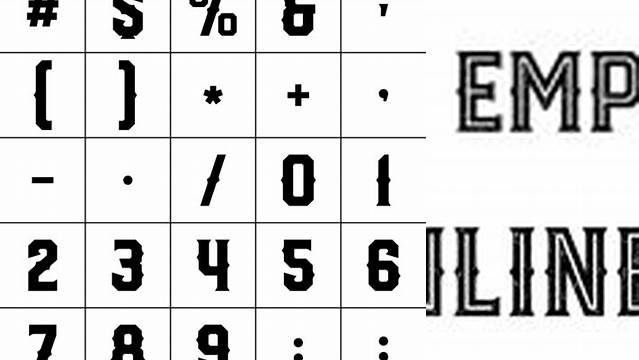
Hey guys! Looking to add some unique flair to your designs? You've come to the right place! Let's dive deep into the world of the Empera Inline Font Free and see how it can transform your projects. This font isn't just another typeface; it's a statement. It's bold, it's stylish, and it's ready to make your text pop. So, what's the hype all about? Well, the Empera Inline Font Free is perfect for headlines, logos, posters, and anything else where you want to grab attention. Its distinctive inline design adds a touch of elegance and modernity that's hard to ignore. Forget those boring, overused fonts – Empera Inline Font Free is here to shake things up!
What is Empera Inline Font?
So, what exactly is the Empera Inline Font? Imagine a font that's both sleek and sophisticated, with a touch of vintage charm. The Empera Inline Font Free is characterized by its clean lines and the inline strokes that run within the letters, giving it a distinctive, almost engraved appearance. This unique design makes it incredibly versatile, suitable for a wide range of projects. Whether you're crafting a logo for a high-end brand or designing a poster for a trendy event, the Empera Inline Font Free has you covered. The beauty of Empera Inline Font Free lies in its simplicity and elegance. It’s not overly flashy, but it commands attention with its subtle sophistication. This makes it a fantastic choice for projects that need a touch of class without being ostentatious. Plus, the inline design adds a layer of depth and visual interest that many other fonts simply can’t match.
Why Choose Empera Inline Font Free?
Now, why should you specifically choose Empera Inline Font Free over the countless other fonts out there? Great question! First off, let's talk about the visual impact. This font is designed to make a statement. The inline style immediately draws the eye, making it perfect for headlines and titles that need to stand out. If you're looking to create a logo that's both memorable and stylish, Empera Inline Font Free is an excellent choice. But it's not just about looks. This font also offers excellent readability, which is crucial for any design project. The clean lines and well-defined characters ensure that your text is easy to read, even at smaller sizes. This makes it suitable for body text as well, especially in projects where you want to maintain a consistent and sophisticated look throughout. Beyond its visual appeal and readability, Empera Inline Font Free is also incredibly versatile. It works well in a variety of design contexts, from print materials like posters and brochures to digital platforms like websites and social media graphics. This adaptability means you can use it across all your projects, creating a cohesive and professional brand identity. The fact that it's available for free is, of course, the cherry on top!
Empera Inline Font Free for Branding
When it comes to branding, choosing the right font is crucial. Your font is a visual representation of your brand's personality, and it can significantly impact how your audience perceives you. Empera Inline Font Free is a fantastic choice for branding because it exudes sophistication and elegance. It's a font that speaks of quality and attention to detail, making it ideal for brands that want to project a premium image. Imagine a high-end fashion brand using Empera Inline Font Free for its logo and marketing materials. The font's sleek lines and stylish inline design perfectly complement the brand's aesthetic, creating a sense of luxury and exclusivity. Similarly, a boutique hotel could use this font to convey a sense of refined taste and understated elegance. But Empera Inline Font Free isn't just for luxury brands. Its versatility means it can also work well for businesses in other industries. A creative agency, for example, could use it to showcase its innovative and design-forward approach. The key is to use it strategically, ensuring that it aligns with your brand's overall message and values. In addition to logos, Empera Inline Font Free can be used across your branding materials, including business cards, website headers, and social media graphics. This consistency helps to reinforce your brand identity and create a cohesive visual experience for your customers.
Using Empera Inline Font Free in Web Design
In web design, typography plays a crucial role in creating a visually appealing and user-friendly experience. The right font can enhance your website's aesthetic, improve readability, and even influence user behavior. Empera Inline Font Free is a superb option for web design, offering a unique blend of style and functionality. Its distinctive inline design can add a touch of sophistication to your website, making it stand out from the crowd. But it's not just about looks – Empera Inline Font Free also ensures that your website content is easy to read. The clean lines and well-defined characters make it a great choice for headings and body text alike. When using Empera Inline Font Free in web design, consider the overall aesthetic of your website. This font works particularly well with minimalist and modern designs, adding a touch of elegance without overwhelming the visual space. It can also be effectively paired with other fonts to create a balanced and harmonious typography palette. For example, you might use Empera Inline Font Free for headings and a simpler sans-serif font for body text. This combination allows you to highlight key information while maintaining readability. Moreover, make sure to optimize the font's size and spacing for different screen sizes and devices. Responsive typography is essential for ensuring that your website looks great on desktops, tablets, and smartphones. With careful planning and execution, Empera Inline Font Free can elevate your web design and create a memorable user experience.
Empera Inline Font Free for Print Projects
Print projects demand attention to detail, and choosing the right font is a key part of the process. Empera Inline Font Free shines in print, offering a touch of elegance and sophistication that can elevate your designs. Whether you're creating posters, brochures, invitations, or business cards, this font can add a professional and stylish touch. The distinctive inline design of Empera Inline Font Free makes it particularly well-suited for headlines and titles in print projects. It commands attention without being overly flashy, ensuring that your message stands out. The font's clean lines and well-defined characters also make it highly readable, even at smaller sizes. This is crucial for print materials, where legibility is paramount. When using Empera Inline Font Free for print, consider the paper type and printing method. The font's intricate details may appear more pronounced on smooth, high-quality paper. Experimenting with different paper textures and finishes can help you achieve the desired visual effect. In addition to headlines, Empera Inline Font Free can be used effectively for body text in print projects. However, it's important to ensure that the font size is large enough for comfortable reading. Pairing it with a simpler font for longer blocks of text can also help to maintain readability. Whether you're designing a marketing brochure or a wedding invitation, Empera Inline Font Free can add a touch of sophistication and elegance to your print projects. Its versatility and timeless appeal make it a valuable asset in any designer's toolkit.